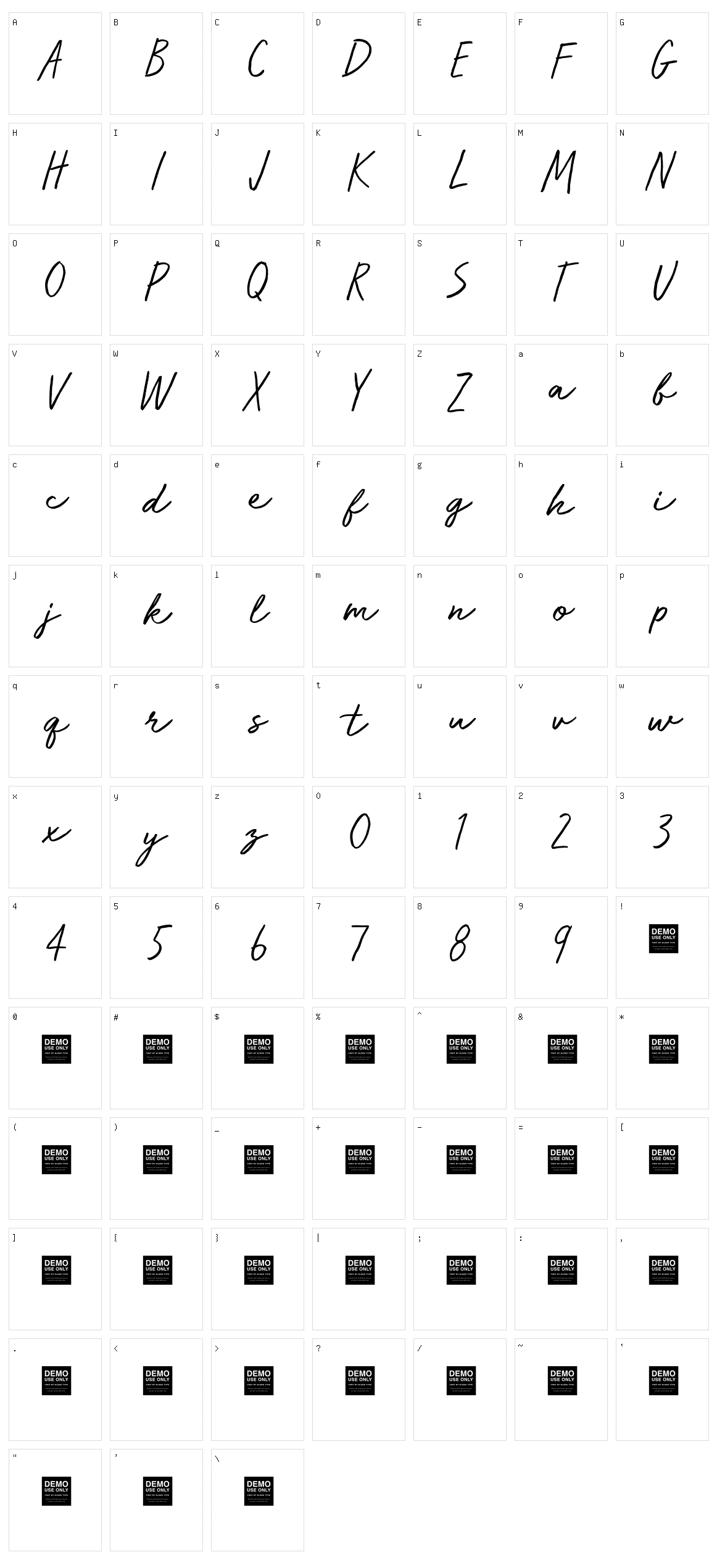
The free font Run Wild is carefully designed by BLKBK Fonts, showcasing a thoughtful balance of creativity and usability and falls under the Script font style. When you download the ZIP file, it contains only 34.68 KB of font files, making it lightweight and quick to download. Please review the license details below to understand permitted usage and distribution rights. If license information is not available, we recommend using this font for personal projects only or contacting the author directly for commercial usage permissions.